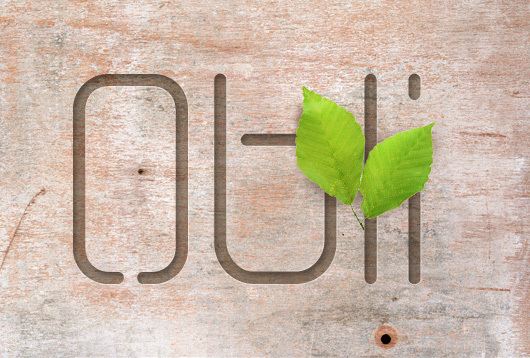
Obli-Regular
Obli is a captivating display font that exudes a bold, techno-inspired aesthetic. Designed by Marivo, this light-weight typeface boasts striking, angular letterforms that command attention. Obli's sharp, geometric shapes and distinct terminals lend it an air of modernity and futurism, making it an ideal choice for headers, titles, and branding applications that require a striking visual impact.
This font's versatility extends across various design disciplines, from sleek user interfaces and product packaging to eye-catching advertising campaigns and editorial layouts. Obli's unique character infuses any design with a bold, technological flair, elevating the overall aesthetic and capturing the viewer's imagination.
Marko Jovanovac